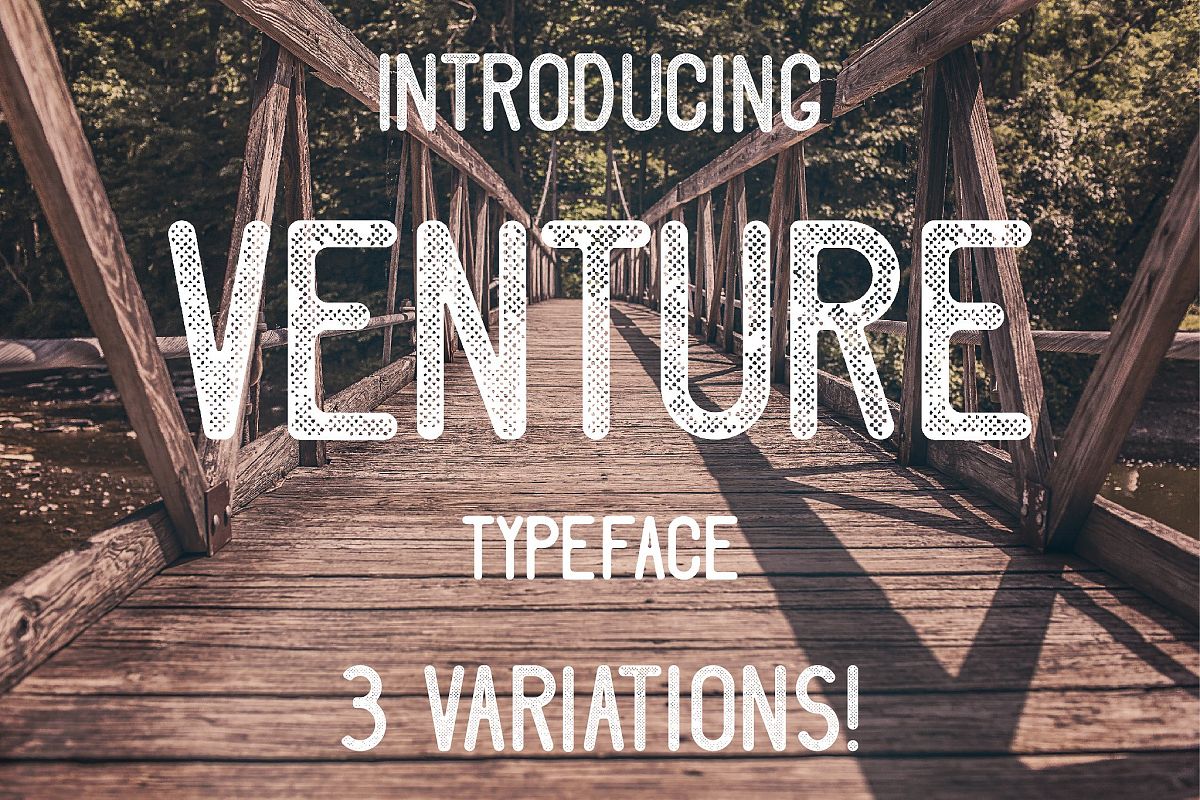
Venture Typeface
Venture-Regular
Venture-Eroded
Venture-Printed
Venture is an all caps typeface available in 3 different variations, great for a vintage print look. Enjoy!